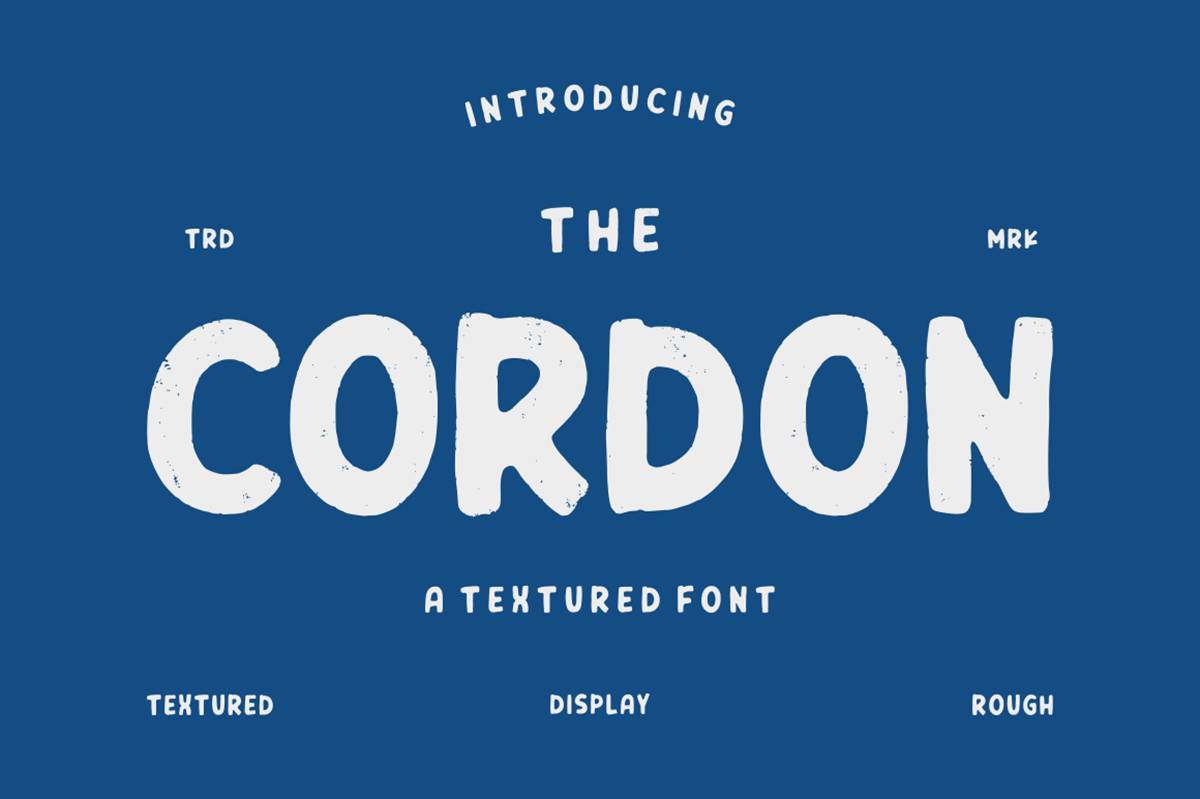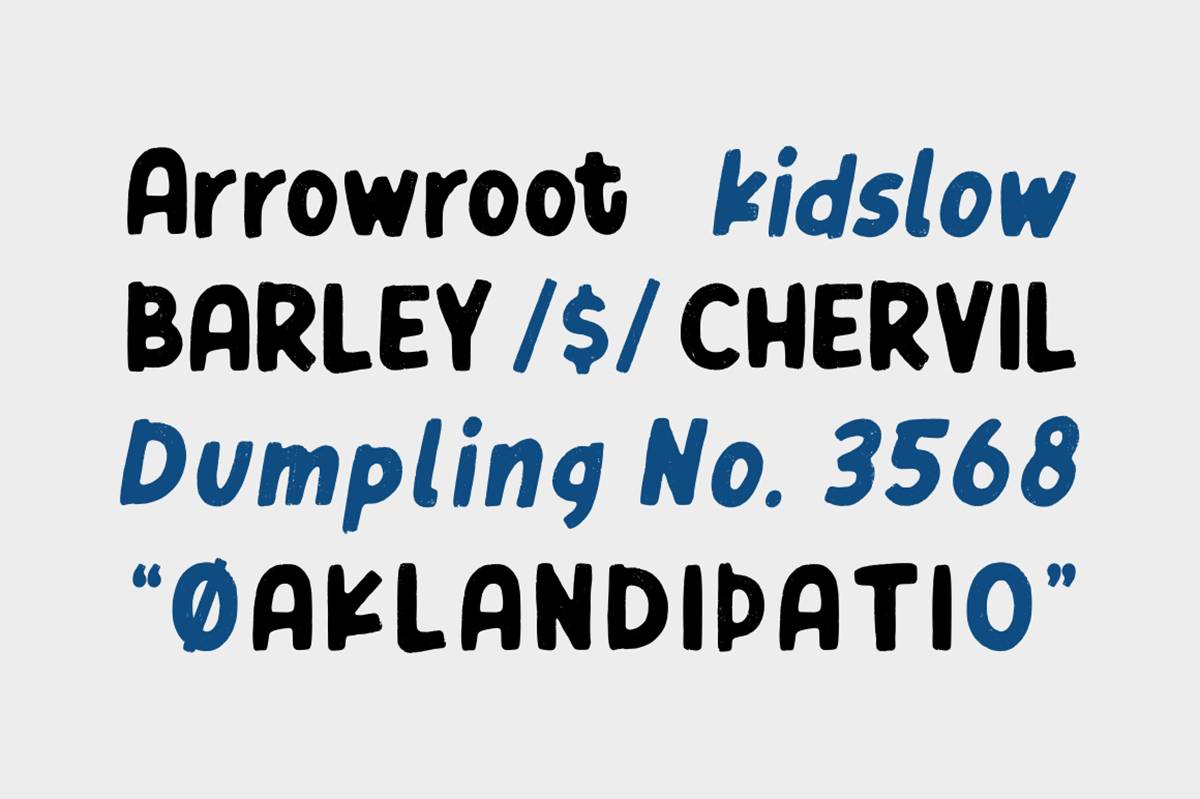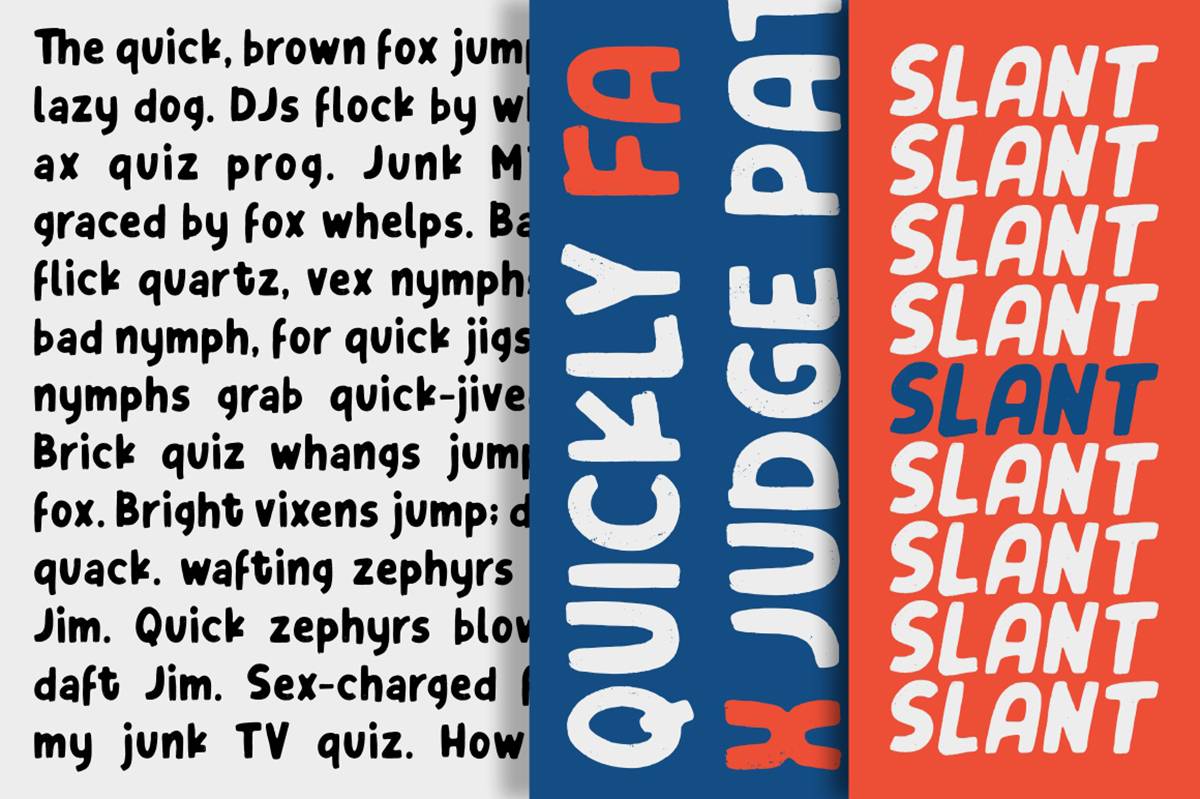
Cordon is a bold, playful sans serif font with a hand-drawn, slightly rough texture that gives it a casual and friendly vibe. Its rounded, irregular letterforms and moderate x-height make it approachable and easy to read, perfect for creative projects, informal branding, and fun headlines. This font works especially well where a warm, handcrafted feel is desired, such as children’s books, posters, and casual packaging.
Cordon Font
About Cordon Font
| Font family | Cordon Font |